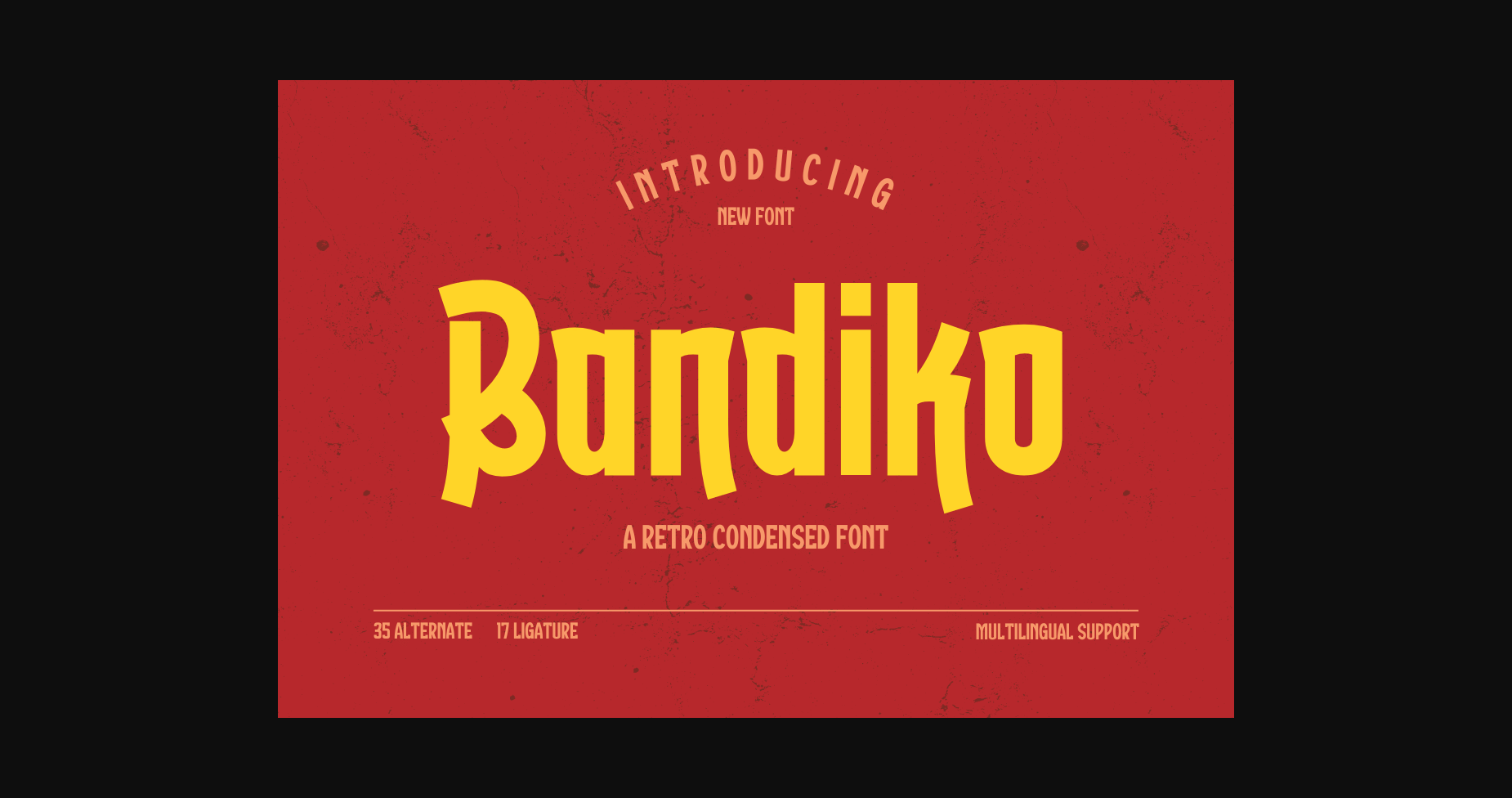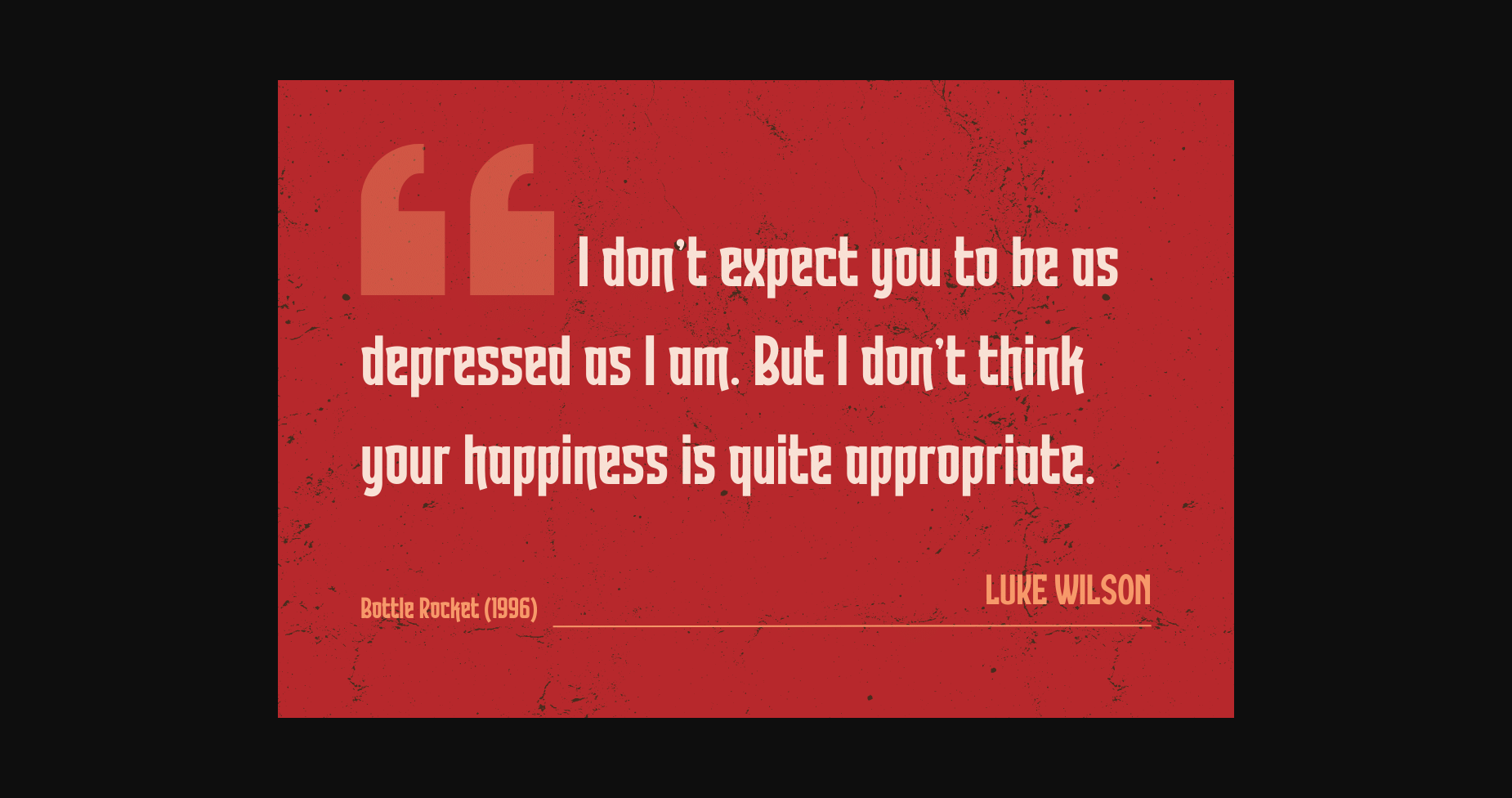
About Bandiko Font
Introducing Bandiko, the perfect font for all your design needs! This font features a retro condensed theme with high and unique shapes, making it suitable for a wide range of design themes. The font comes with a stylistic set of alternate and unique ligatures, giving you the freedom to add a touch of personality to your designs. Keep in mind that the font is PUA encoded, meaning that you can access all delightful glyphs and swashes effortlessly.